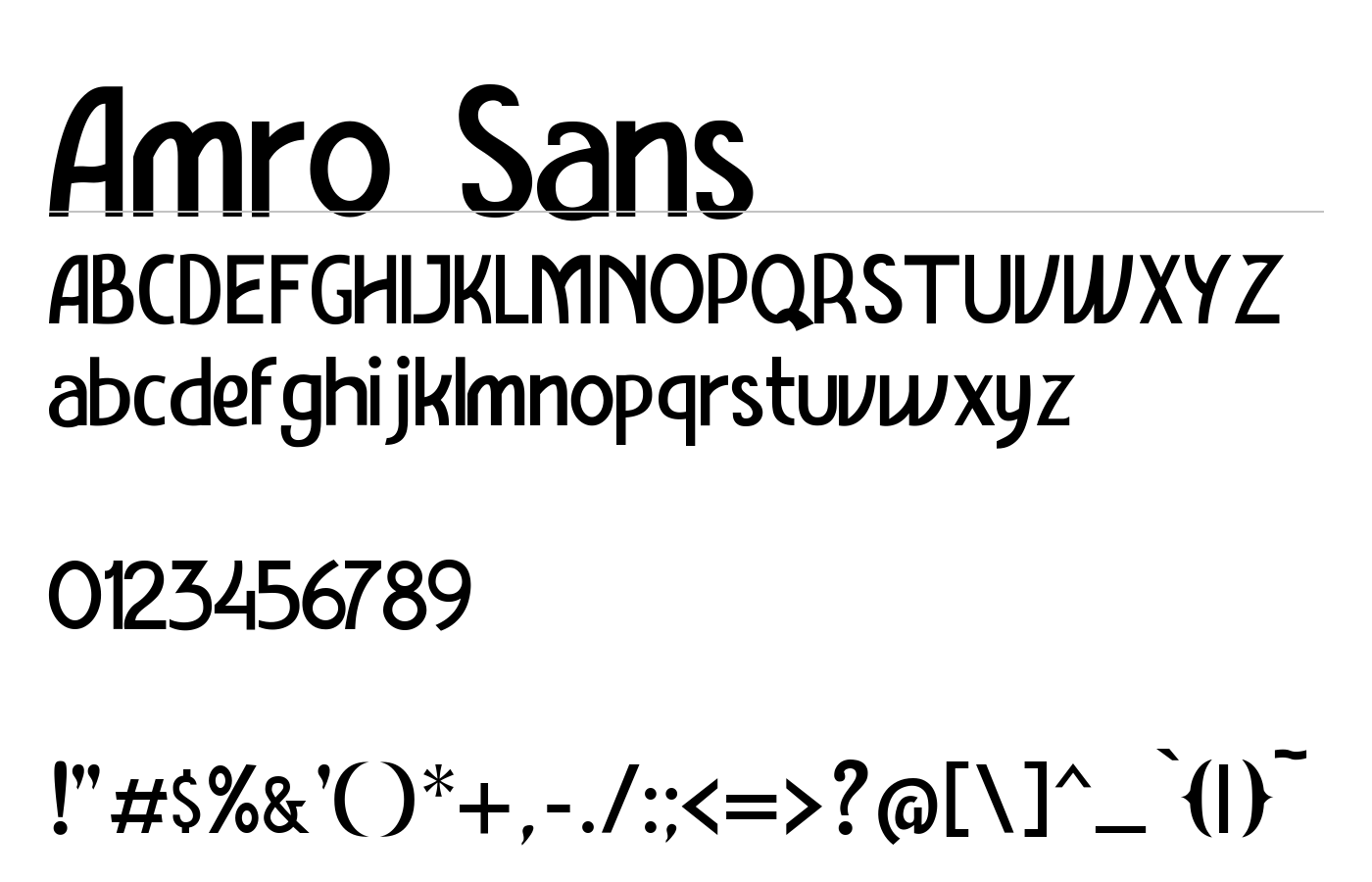
Amro Sans is a distinctive sans serif font with a playful yet elegant character, featuring slightly condensed letterforms and a moderate x-height that enhances readability. Its unique shapes, such as the curved tails on the Q and R, along with sharp but smooth lines, give it a modern and artistic feel ideal for creative branding, headlines, and editorial design. This font works well in projects seeking a blend of sophistication and individuality without sacrificing clarity.
Amro Sans Font
About Amro Sans Font
| Designer | Andi Winarno |